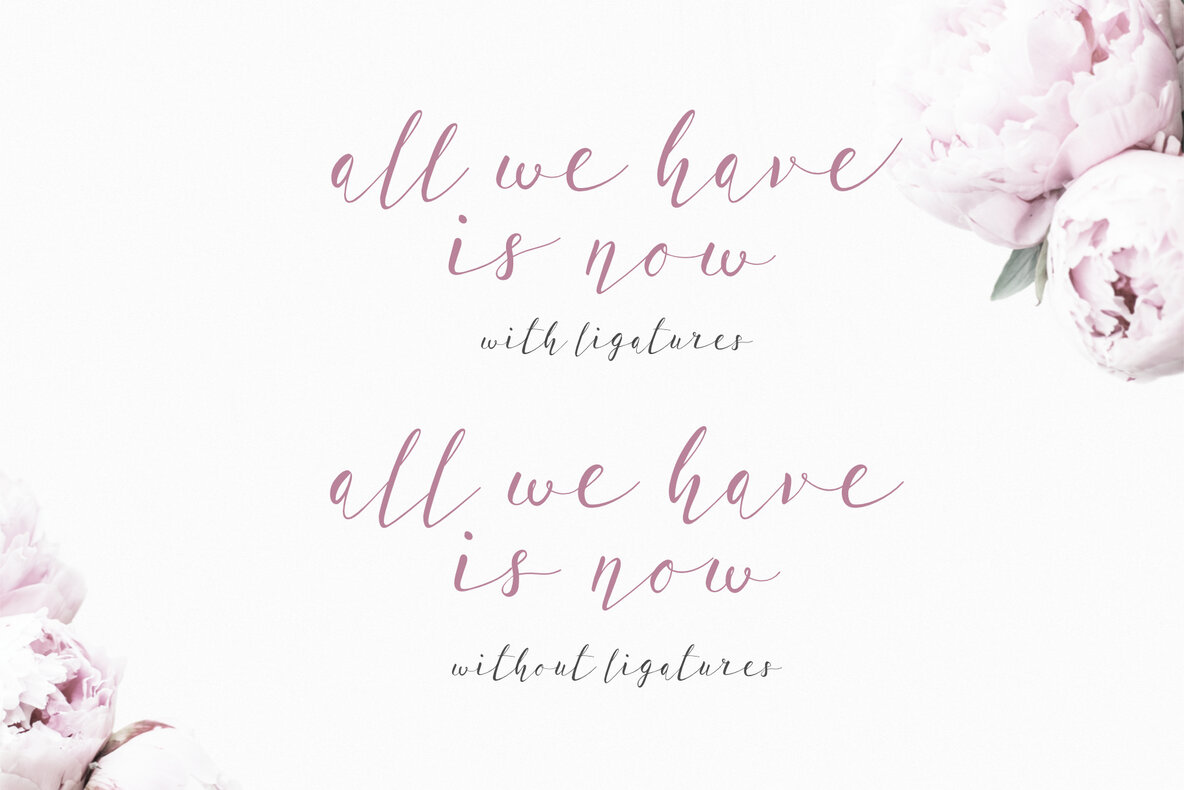
Lil Baby Font
NF Lil Baby Regular
Lil'Baby Script is a romantic modern calligraphy typeface, which supports latin and greek characters. Contains a complete set of lower and uppercase letters, punctuation, numbers, ligatures and diacritics for multilingual support.
This modern script font is perfect for your graphic design needs like quotes, blog headers, posters, wedding invitations, branding, packaging, logos, fashion, apparel, letters, stationery.